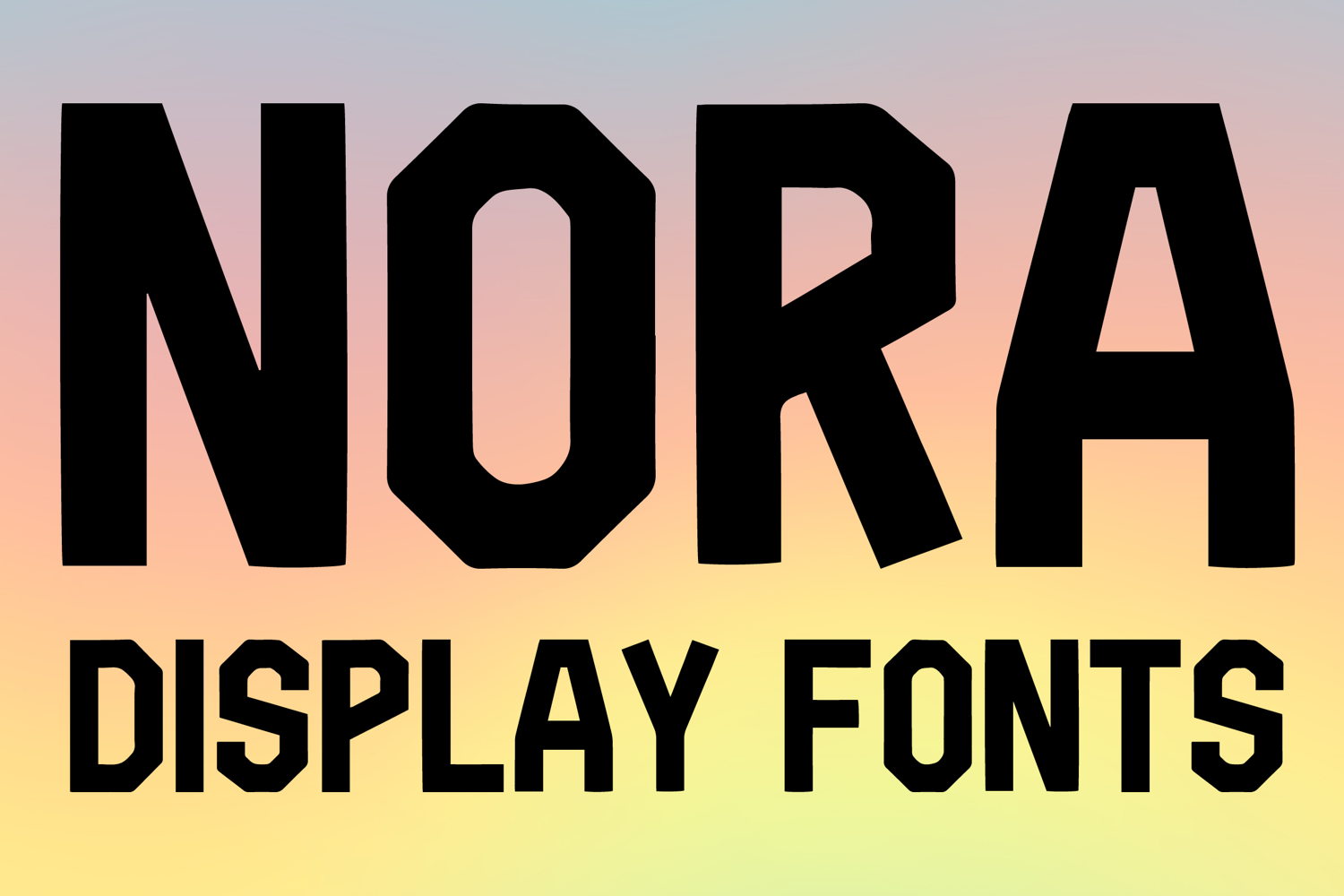
NORA
NORA-Regular
NORA is a bold display font with a strong geometric style and modern industrial character. Its uppercase letterforms feature thick blocky strokes, sharp angular corners, and structured cut details that create a powerful, striking, and eye-catching look. Designed with uppercase letters A–Z and numbers 0–9, NORA is perfect for branding, posters, packaging, logos, headlines, and social media graphics that need a bold and memorable statement.